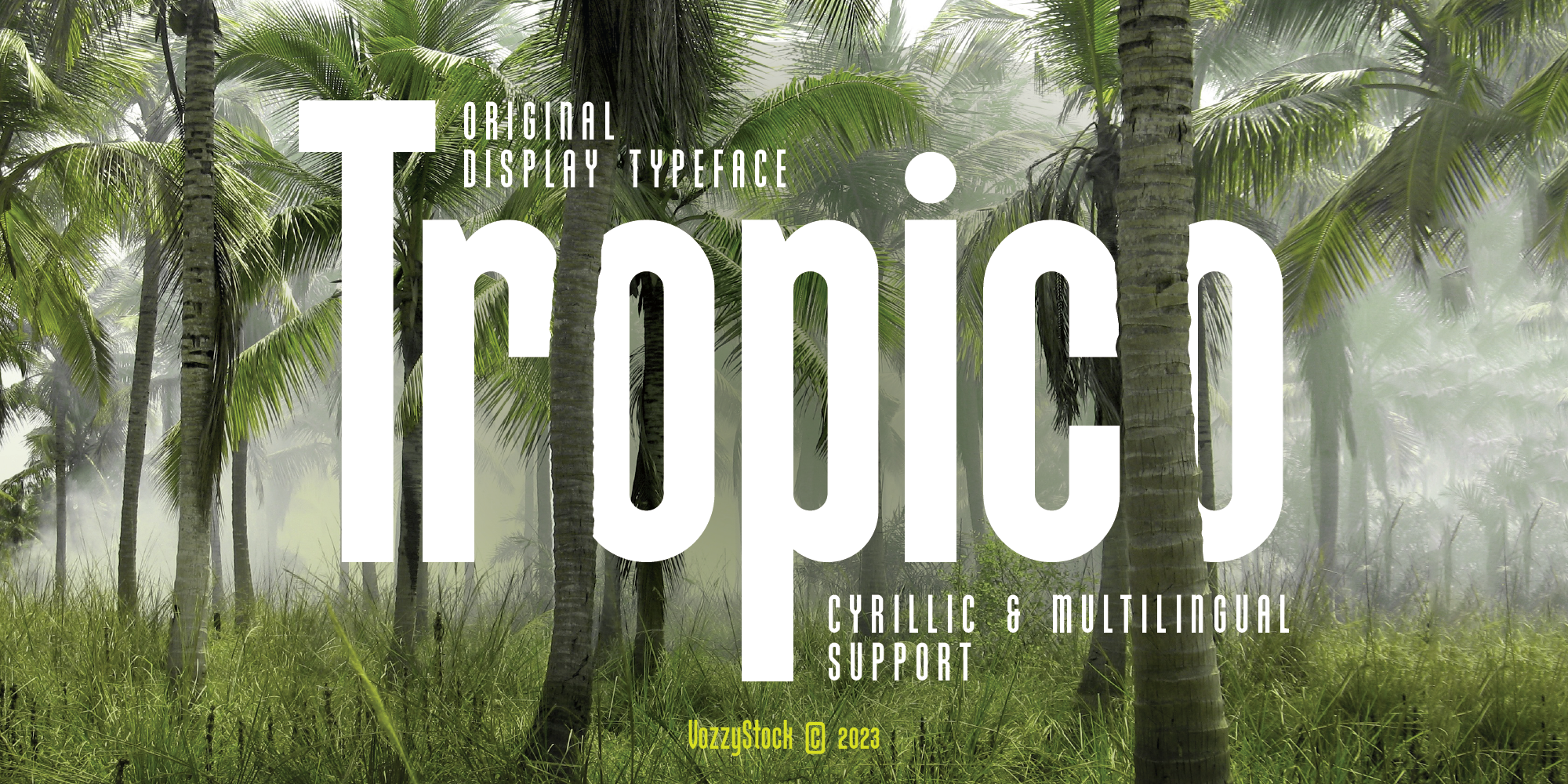
Tropico Font is perfect for tropical resorts, summer campaigns, beach brands, vacation marketing, tropical restaurants, island tourism, and exotic lifestyle communications. This vibrant typeface brings tropical warmth and paradise vibes to sun-soaked design projects.
Tropico Font is exciting because it captures the essence of tropical paradise with its warm, inviting letterforms that convey relaxation and exotic beauty while maintaining exceptional readability and vacation appeal across tropical and leisure applications.
The Tropico Font family includes regular and decorative variations with tropical character elements and paradise-inspired styling details. This sunny collection provides designers with vibrant options for creating memorable and tropically enchanting brand experiences.
Tropico Font Free Download provides access to a tropically crafted typeface that embodies the warmth, beauty, and relaxed atmosphere of tropical paradises. This vibrant font features sunny letterforms with tropical details that create immediate associations with vacation destinations, exotic beauty, and tropical lifestyle. The typeface showcases warm proportions and paradise aesthetics that enhance vacation communications while maintaining professional functionality and broad appeal. Its tropical character makes it particularly suitable for travel brands and leisure companies that require typography capable of conveying tropical warmth, vacation relaxation, and exotic paradise charm. Tropico Font delivers exceptional tropical impact for applications where cold fonts feel inappropriate for vacation communications and tropical lifestyle branding. The font's paradise appeal and tropical aesthetic make it an essential tool for designers working on projects that require typographic expression of tropical beauty, vacation vibes, and exotic warmth that resonates with audiences seeking authentic tropical experiences and paradise visual communication.